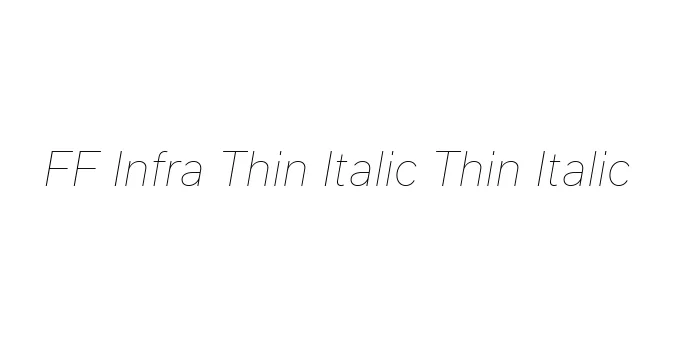
FF Infra Thin Italic Thin Italic
Designed by Gabriel Richter
FF Infra was designed by Gabriel Richter and released through the FontFont library in 2019. This versatile sans-serif typeface family was inspired by the functional beauty of public signage and infrastructure, aiming to provide a high level of legibility combined with a contemporary, industrial aesthetic.
The FF Infra Thin Italic variant is characterized by its light stroke weights and precise geometric construction. It excels in professional environments where a sense of modern sophistication and clarity is required, making it a favorite for high-end editorial and corporate communication projects.
FF Infra Thin Italic Best Uses
Ideal for captions, footnotes, and elegant pull quotes in luxury magazines.
Great for subtle UI elements and sophisticated highlights in modern web layouts.
Suitable for tech-focused and minimalist corporate identity systems.